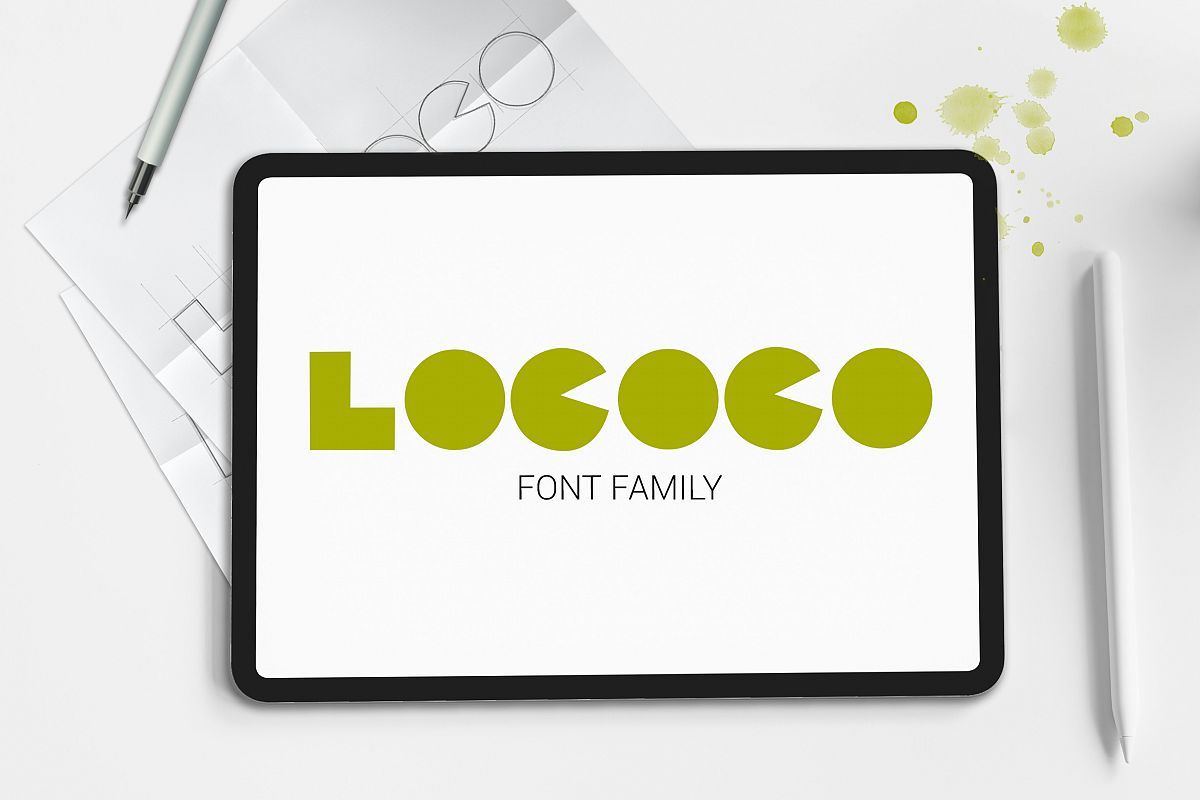
Lococo Font Family
The Lococo Family is a stylish playful family that offers loads of fun.. Perfect to give a unique appearance to your designs. All punctuations, extensions, numbers and webfont.